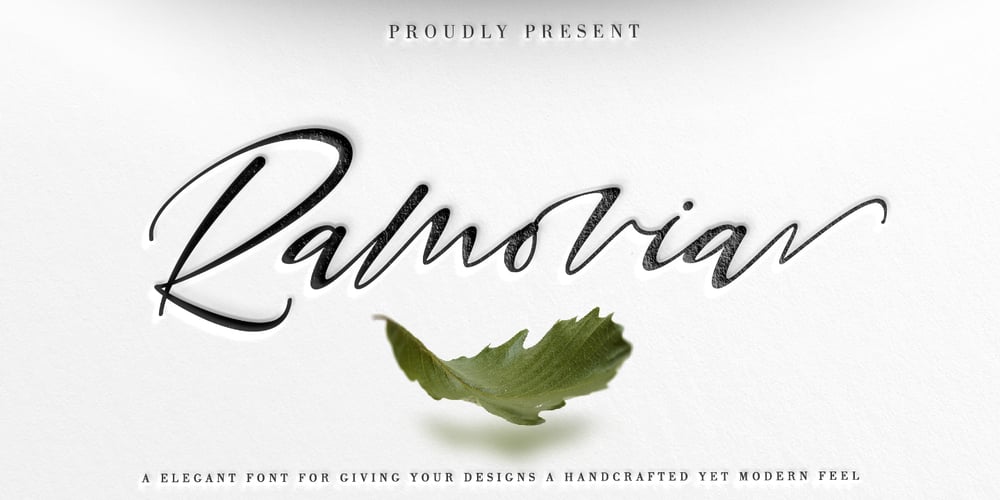
Ramovia Font Family was designed by Thomas Aradea and published by Letterara. Ramovia contains 2 styles and family package options. Ramovia is a elegant font for giving your designs a handcrafted yet modern feel. This clean handwritten looks great in both modern and classic designs. What’s included: 1. Style in this font include: Regular & Italic 2. Works both on Mac & PC 3. Simple installations 4. Swash & Ligature 5. Accessible in the Adobe Illustrator, Adobe Photoshop, Adobe InDesign, CorelDraw, even work on Microsoft Word. 6. Support multilingual; ä ö ü Ä Ö Ü ß ¿ ¡ 7. To access the alternate glyphs, you need a program that supports OpenType features such as Adobe Illustrator CS, Adobe Photoshop CC, Adobe Indesign and CorelDraw. More information about how to access alternate glyphs, check out this link (http://goo.gl/ZT7PqK)